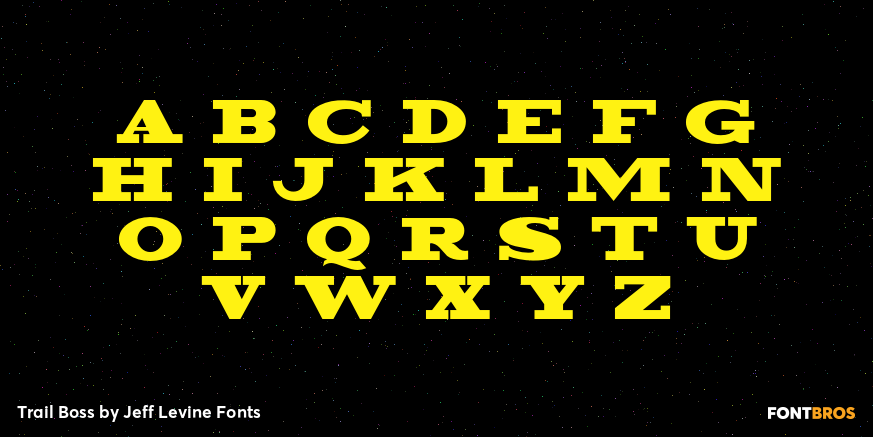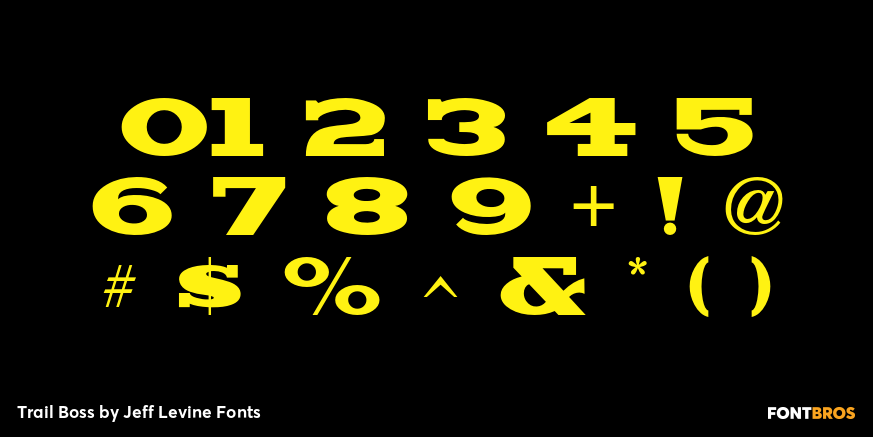
Trail Boss
Trail Boss JNL emulates vintage wood type and was inspired by a few visual examples found online. The erratic widths of the letters are part of the intrinsic charm of this kind of lettering.